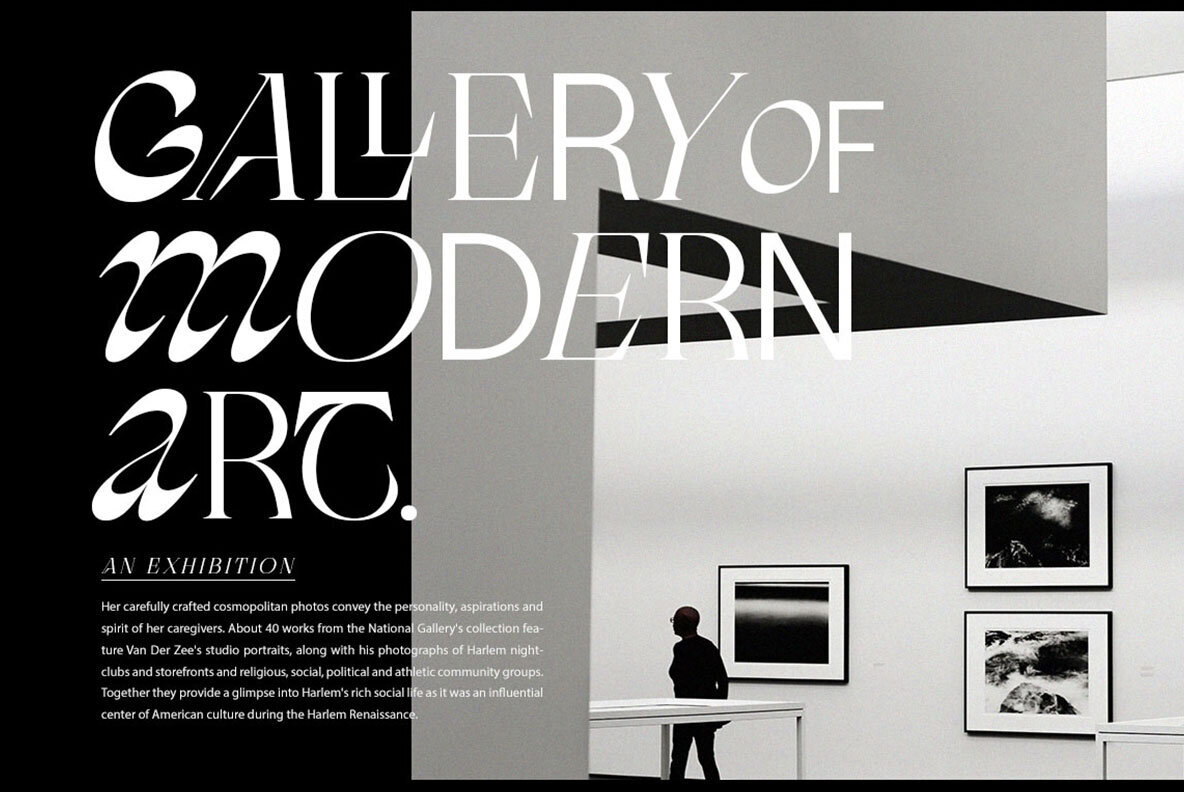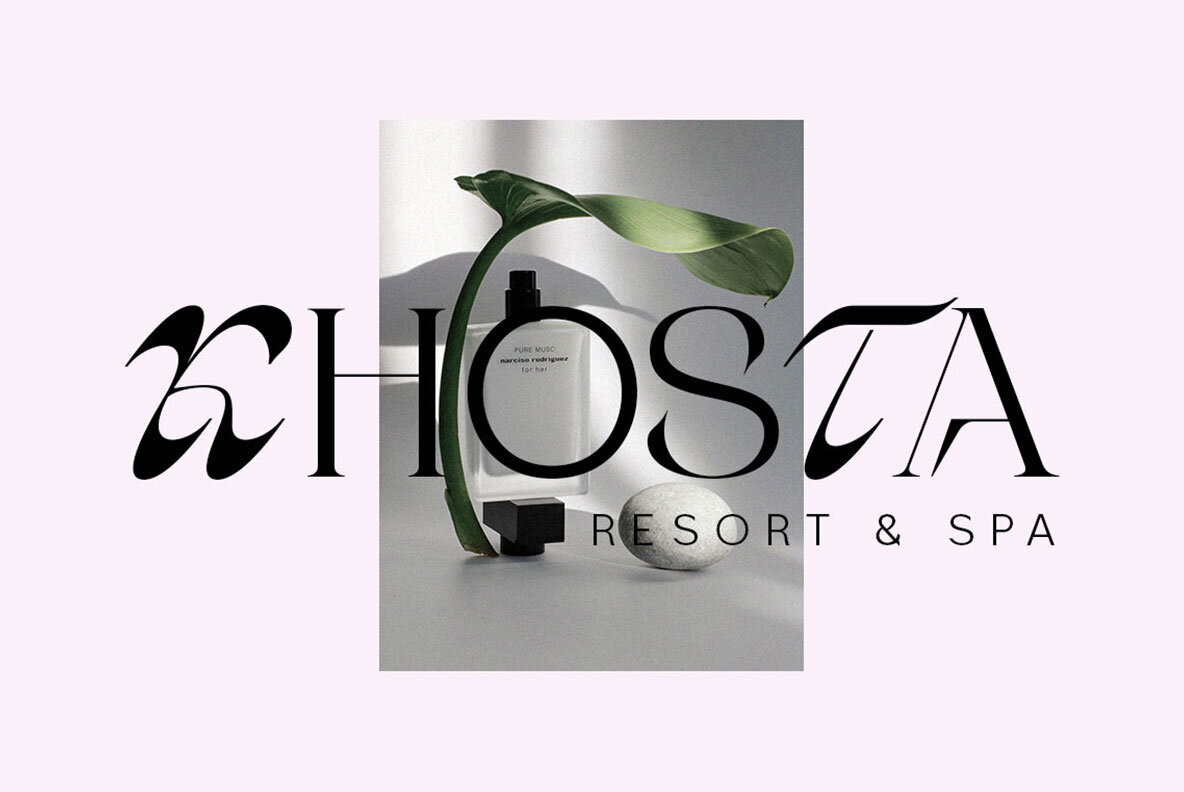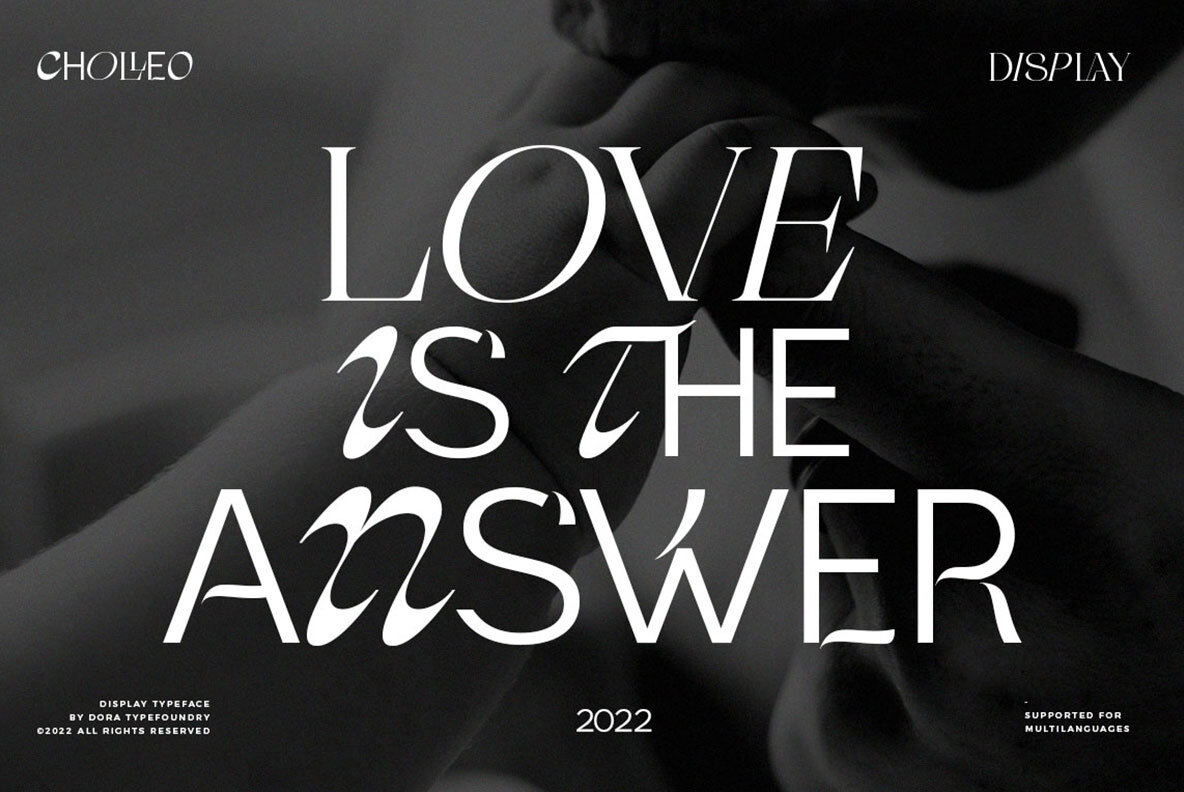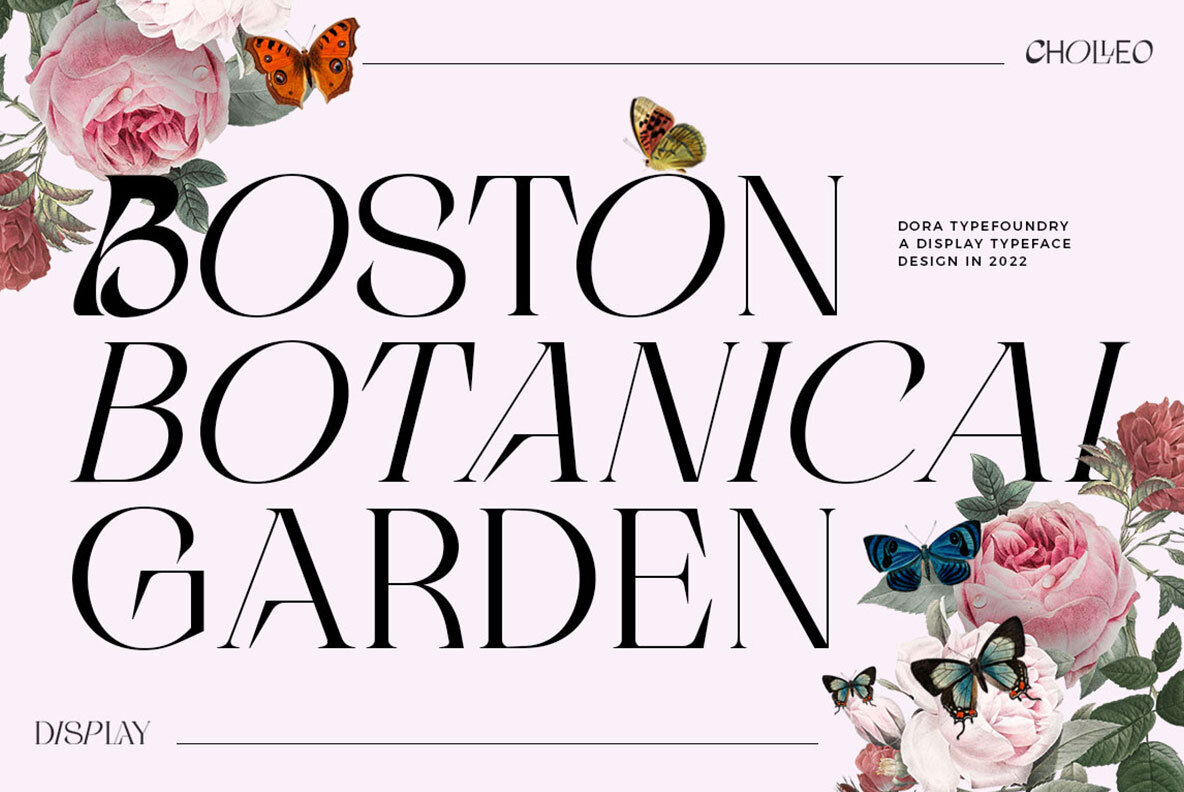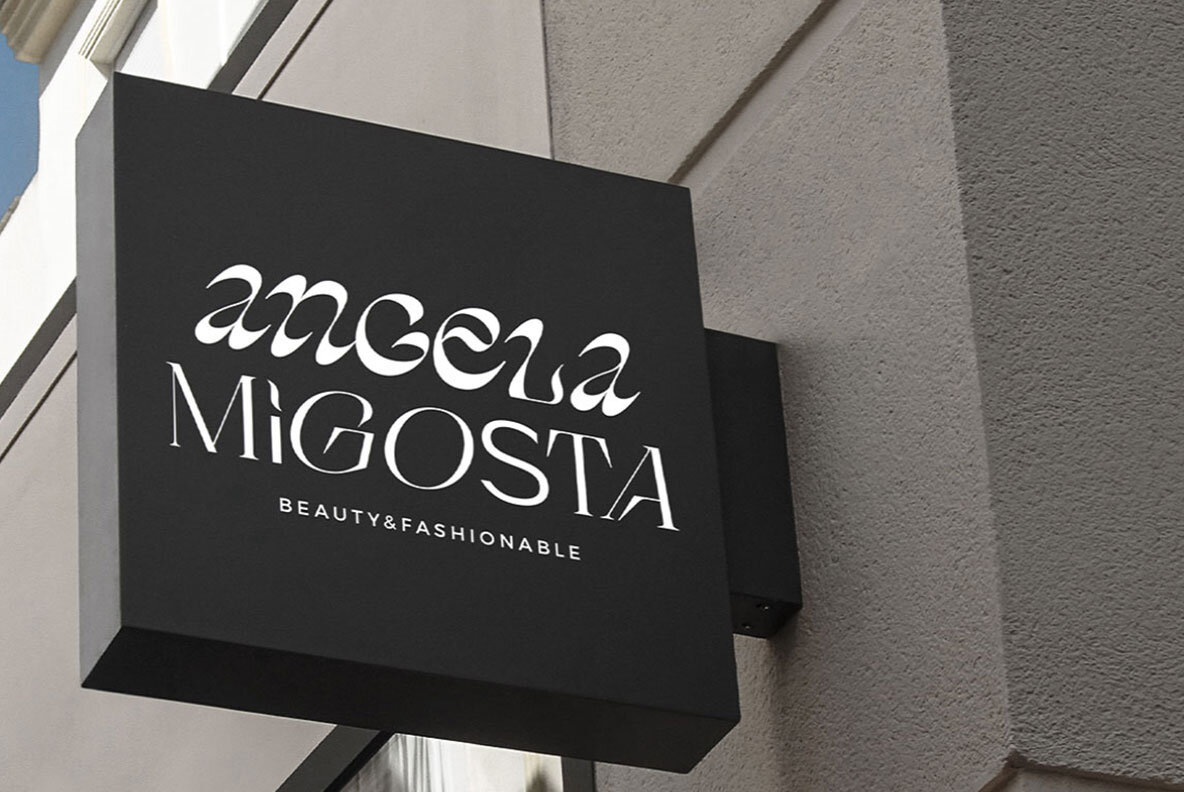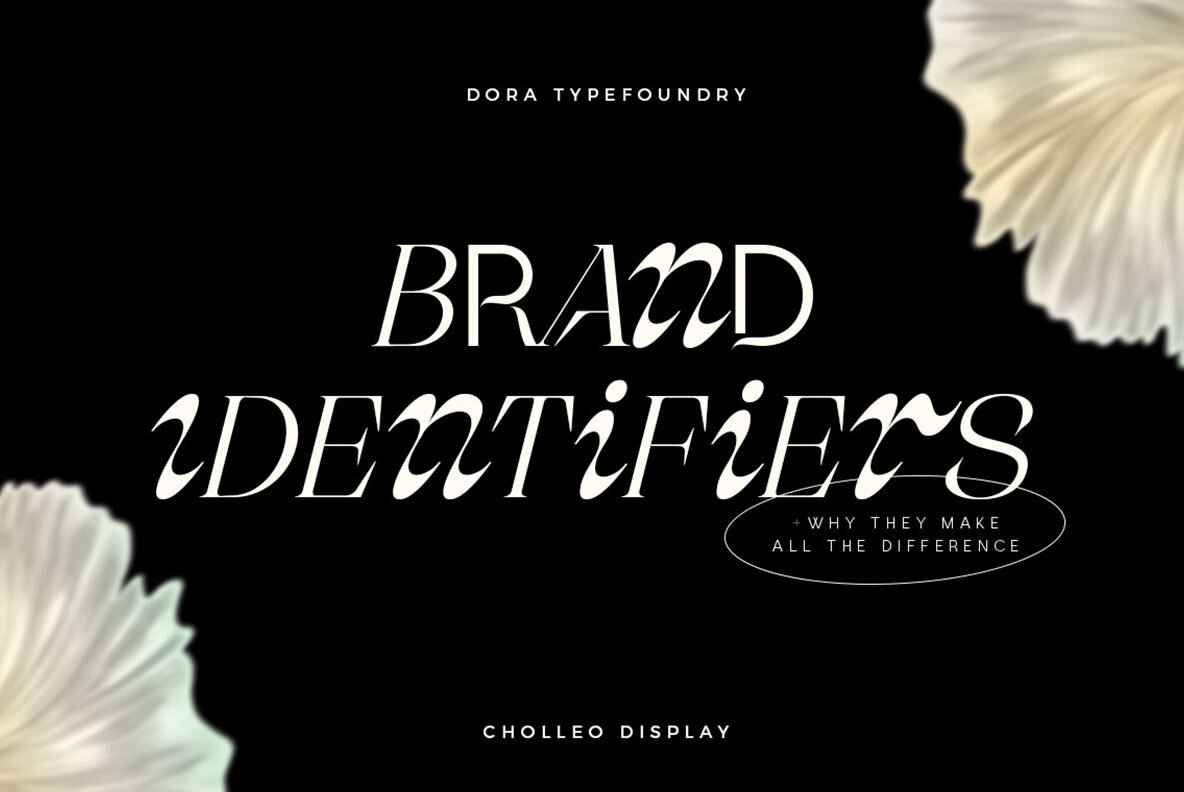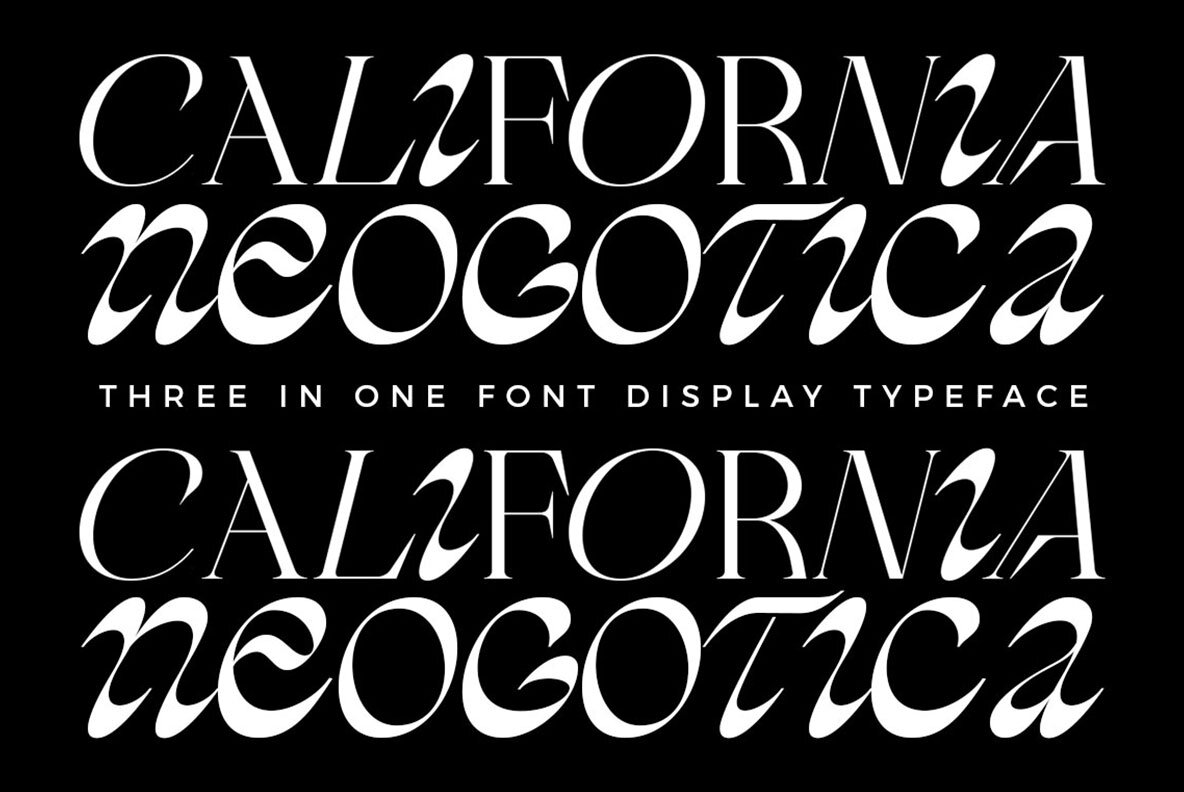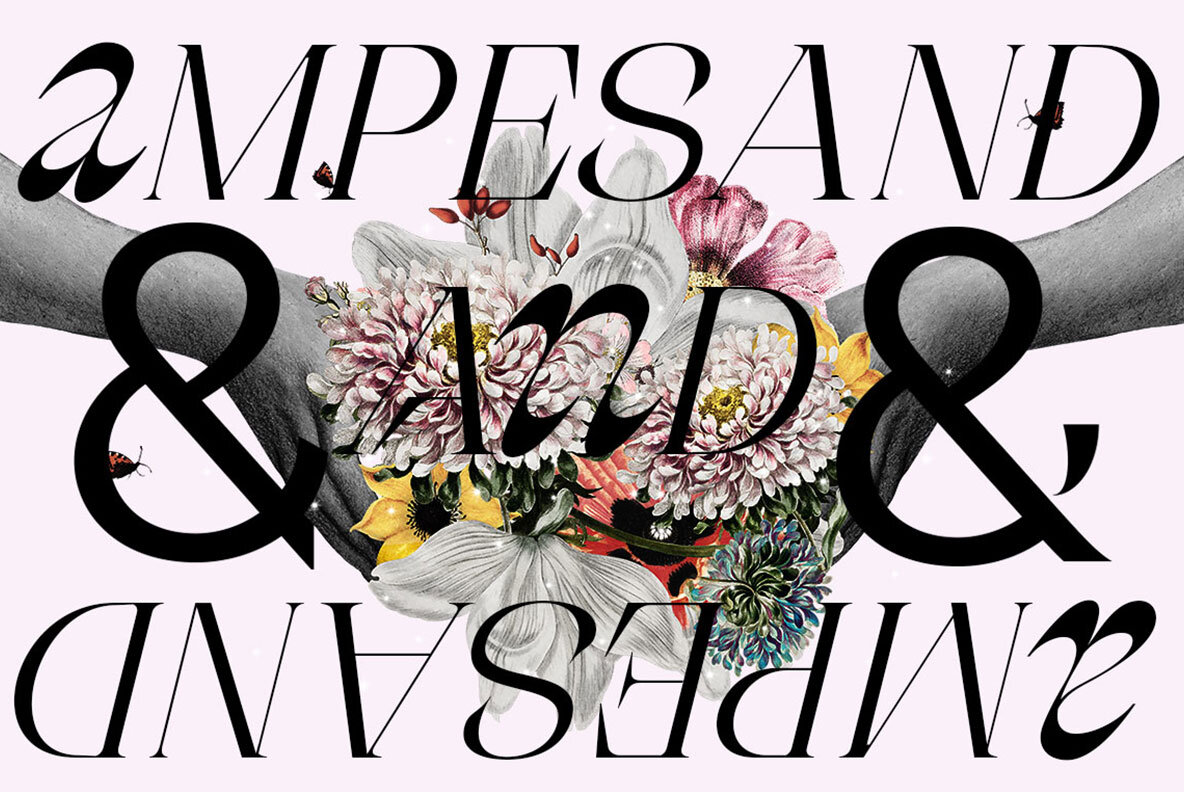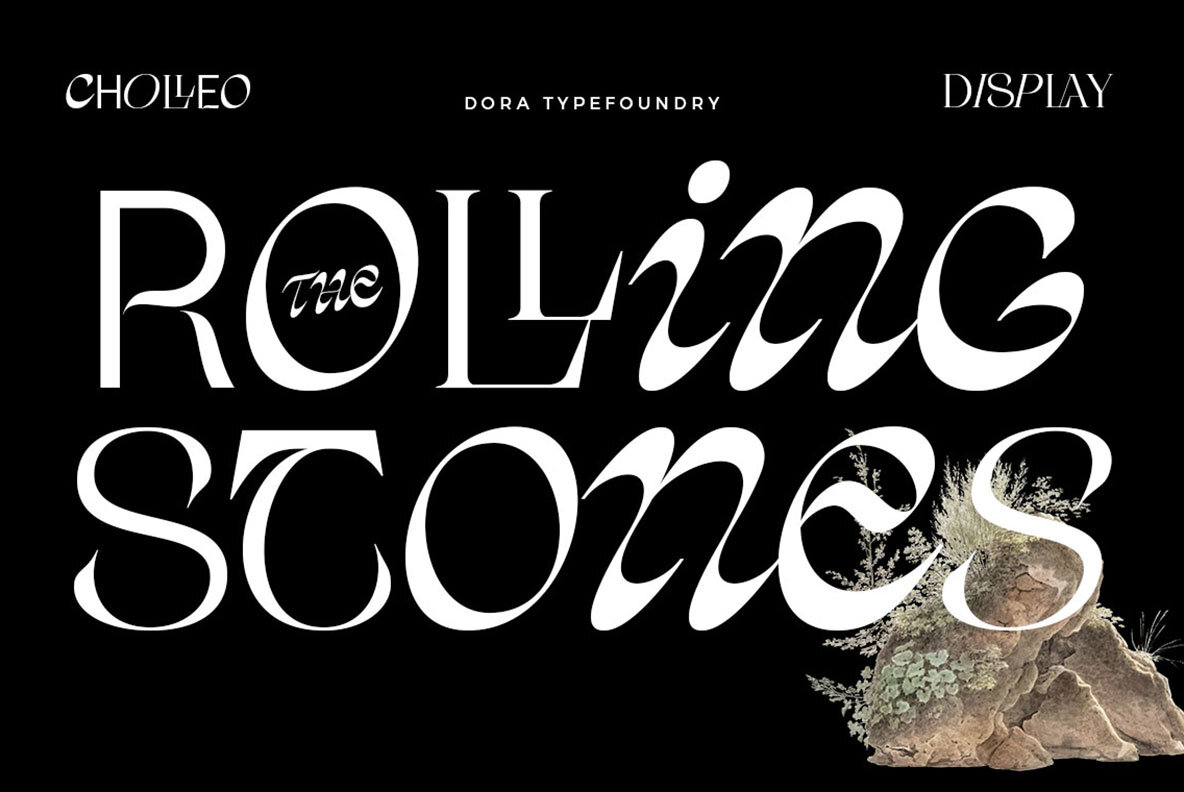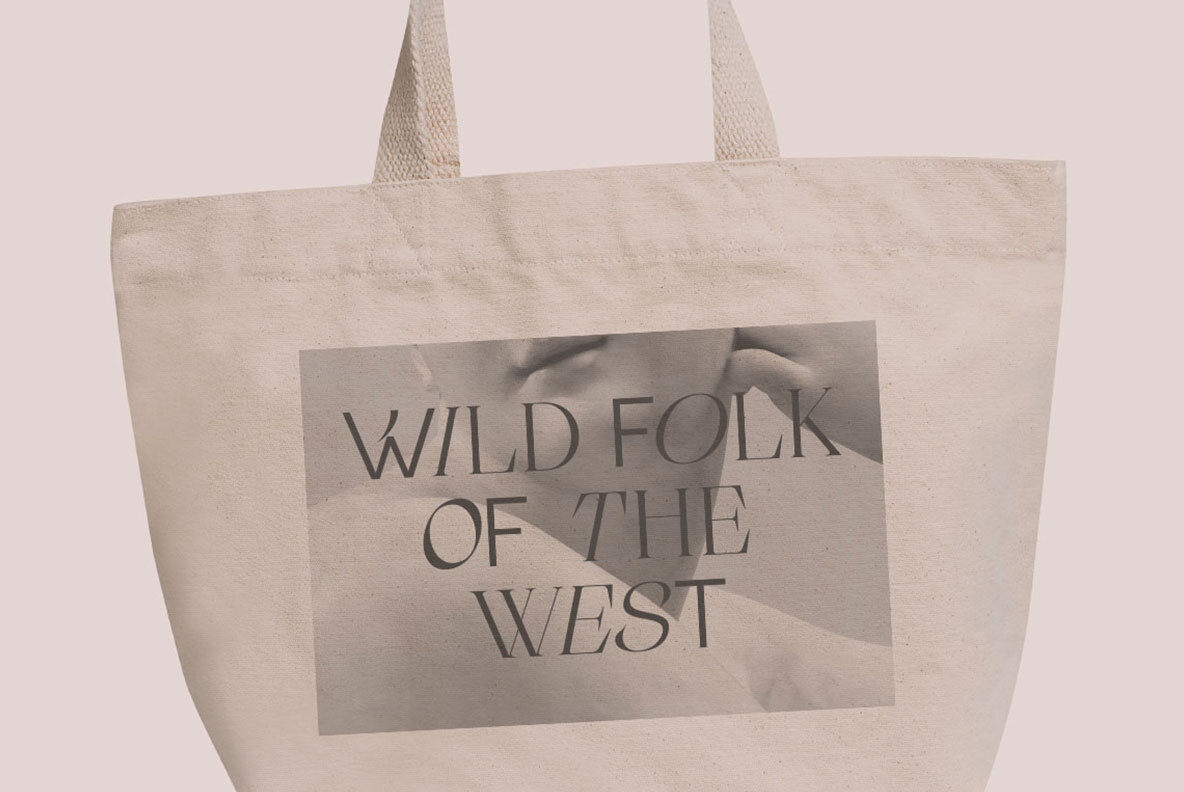
Cholleo Font
Cholleo Regular
Cholleo Display by Doratype Foundry offers a distinctive fusion of modern sans and serif styles in a single font. Ideal for a range of applications such as magazines, posters, logos, titles, and quotes, it's perfect for headlines that demand attention. Crafted with dedication, the Cholleo family aims to make your design process as smooth and enjoyable as possible. If you have any questions, feel free to contact us at •••.Cholleo Display: A Modern Sans and Serif Fusion